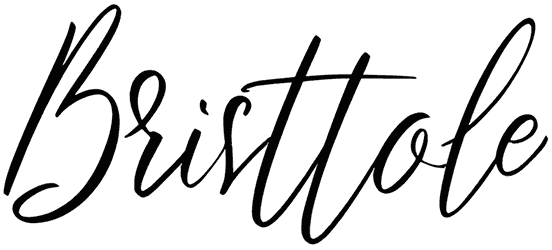
Bristtole Font
Bristtole includes a classic concept with a luxurious and elegant look that gives a personal touch to any project you work on. This handwritten font is an ideal option for branding invitations and packaging that offers p…
Bristtole includes a classic concept with a luxurious and elegant look that gives a personal touch to any project you work on.
This handwritten font is an ideal option for branding invitations and packaging that offers prominent and comprehensive lines and can increase your power of emphasis. The illegibility of this script font has made the audience focus on your writing and remember your content for a longer time.